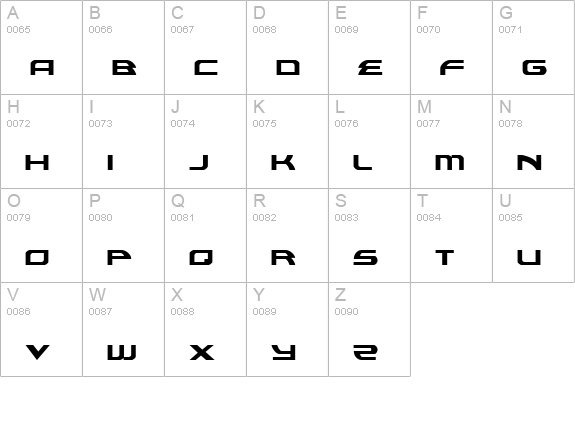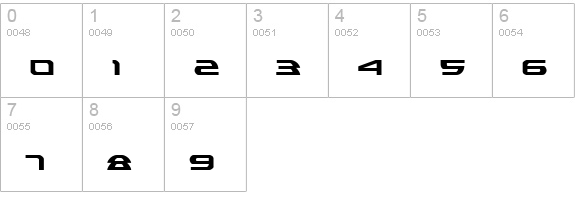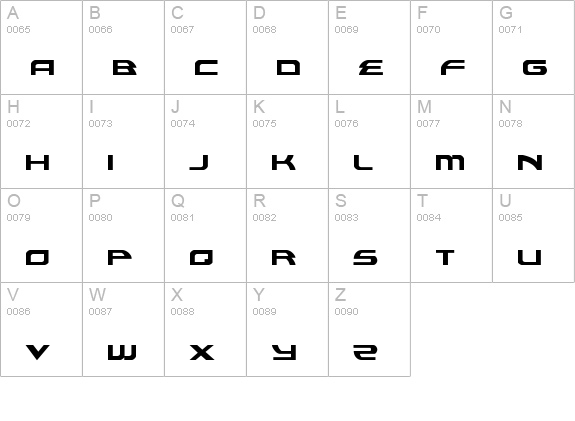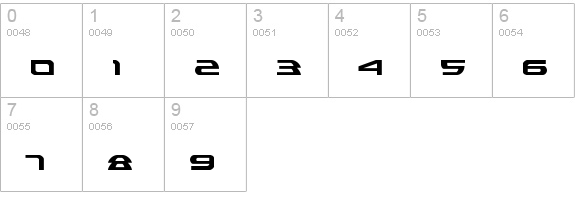
Alexis Lower Case font is a modern and stylish typeface that brings a touch of elegance to any project. With its sleek and sophisticated design, this font is perfect for adding a contemporary flair to your designs. The lowercase letters are sleek and streamlined, making them easy to read and perfect for a wide range of applications. Best of all, Alexis Lower Case font is available for free download at FontsMarket.com. Whether you're working on a personal project or a professional design, this font is sure to elevate your work with its clean lines and chic aesthetic. Download Alexis Lower Case font today and add a touch of sophistication to your design projects.